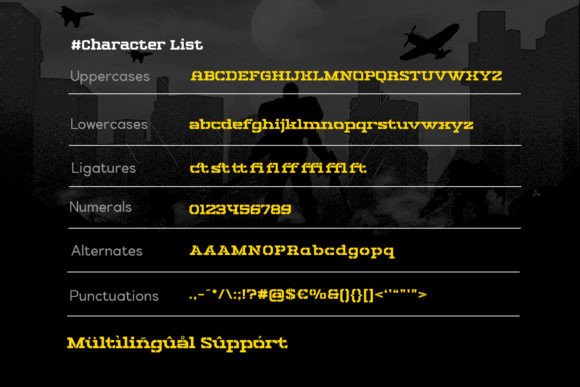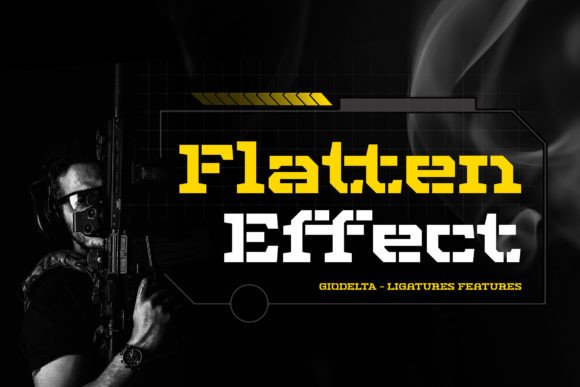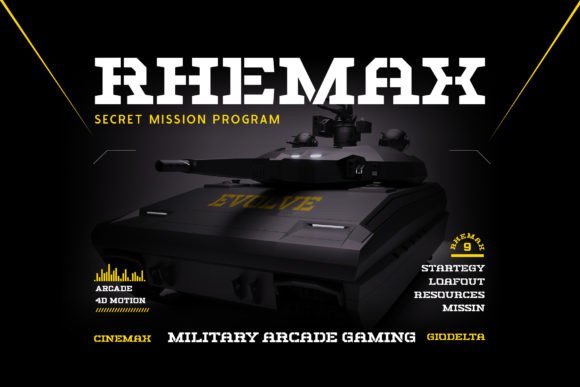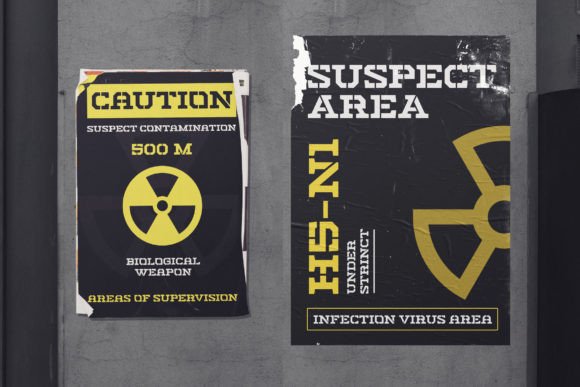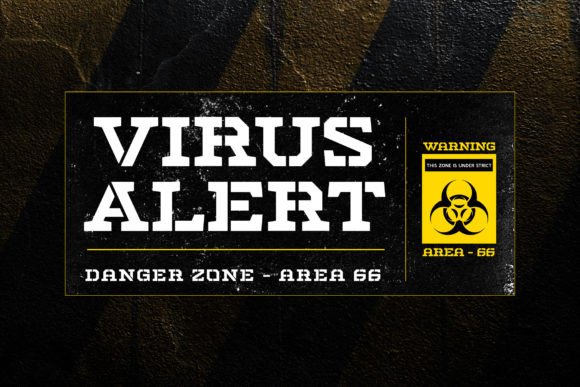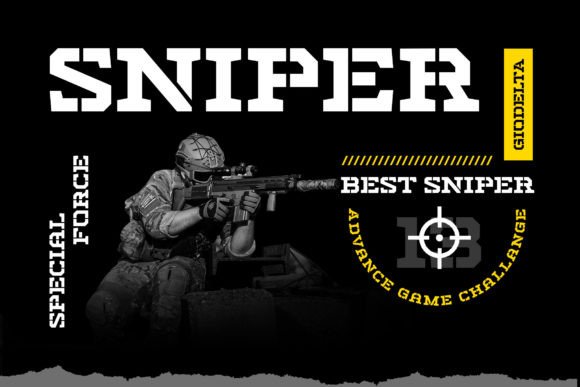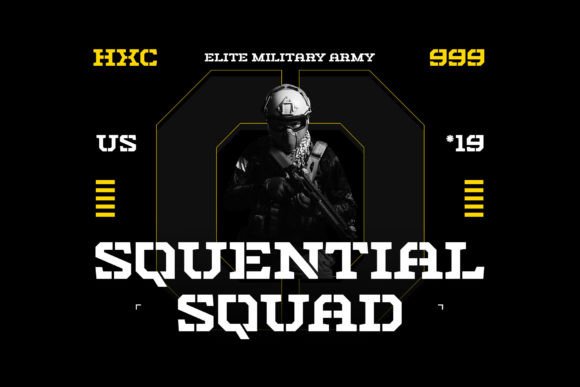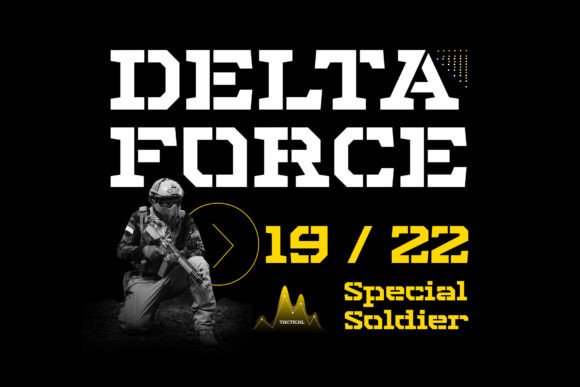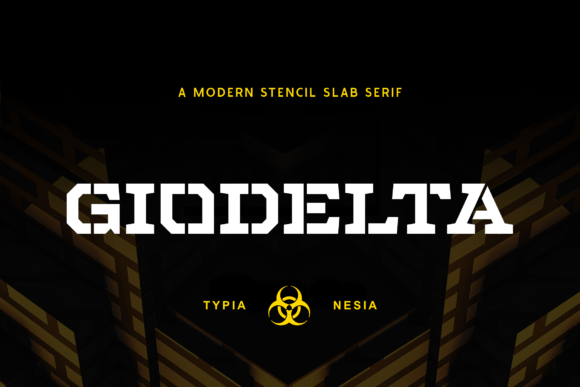
Giodelta
Giodelta: A Stencil Bold Slab Serif Font
Giodelta is a bold stencil slab serif font designed for military, gaming, racing and sports applications. This versatile display typeface combines retro 80s style with modern sports aesthetics.
Key Features of Giodelta
• Stencil Design: Offers military-inspired letterforms.
• Bold Style: Brings commanding presence to designs.
• Sports Appeal: Perfect for racing and esports.
• Retro Character: Features 80s-inspired elements.
Best Uses for Giodelta
Thanks to its versatile characteristics, Giodelta works especially well for:
When using Giodelta in your designs, keep these tips in mind:
• Try it for headlines or display text to showcase its stencil style.
• Use its bold character for impactful sports designs.
• Let its retro appeal enhance 80s-themed projects.
• Take advantage of its versatility across applications.
To sum up, Giodelta is an excellent choice for designers seeking a bold stencil slab serif font. Its versatility makes it perfect for various creative projects. Whether you’re creating game designs, developing racing brands, or working on sports materials, Giodelta offers the perfect blend of military style and modern sports appeal.
Furthermore, Giodelta’s distinctive design allows it to shine in contexts where both impact and authenticity are key. From esports branding to music posters, this font can elevate your projects with its commanding style. Also, its bold stencil appearance works particularly well in designs that aim to make a strong sporting impact.
In conclusion, Giodelta truly captures the essence of military and sports design in slab serif typography. Its ability to work across both retro and modern applications shows how versatile it can be. Therefore, for those wanting to add a touch of bold sporting character to their work, Giodelta can transform any design with its distinctive style. Ultimately, it’s perfect for designers aiming to make a powerful impact across military, gaming, and sports-themed projects.